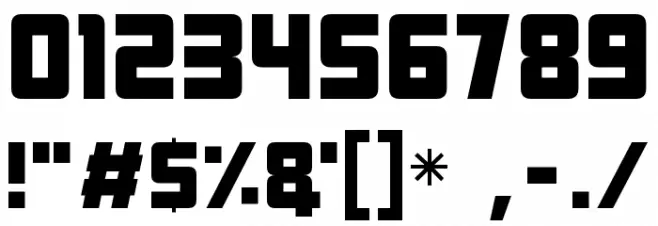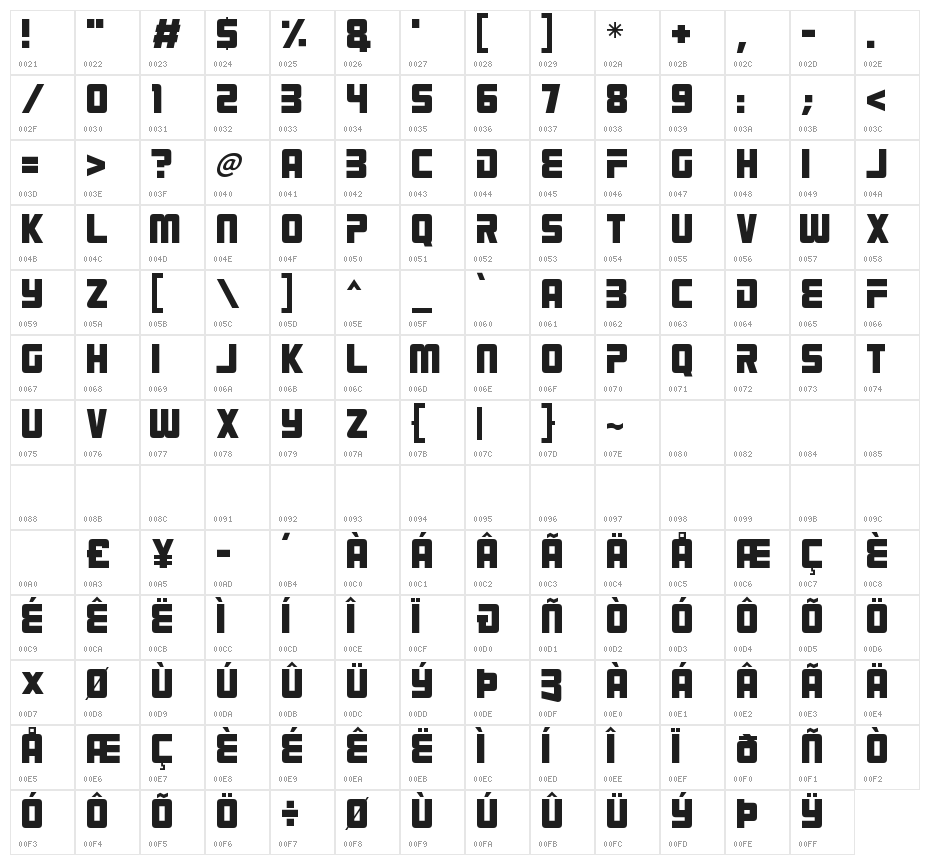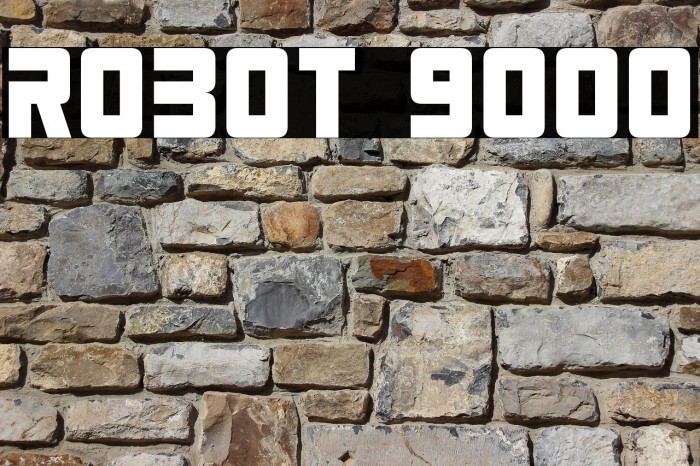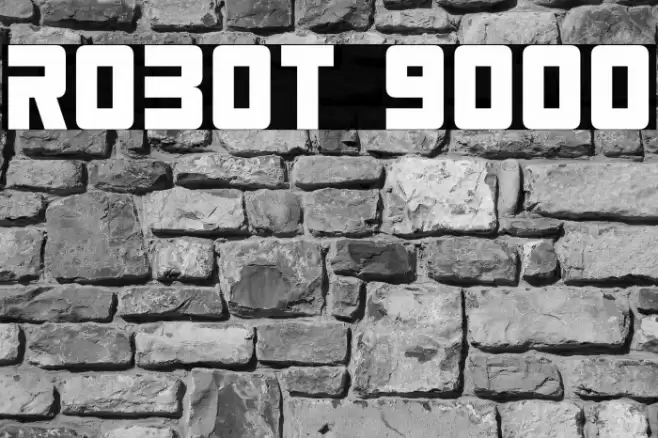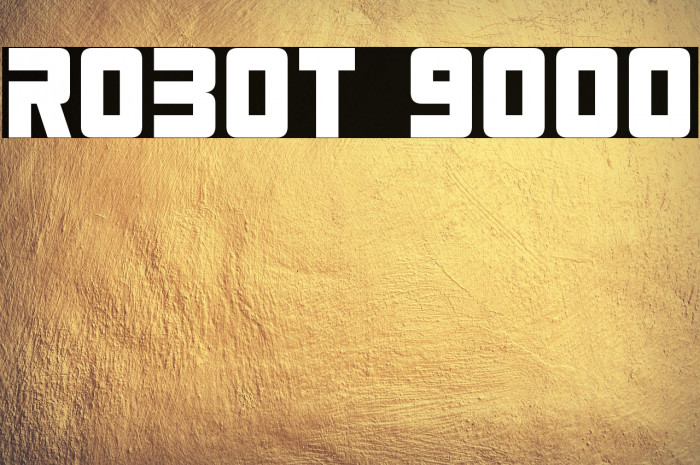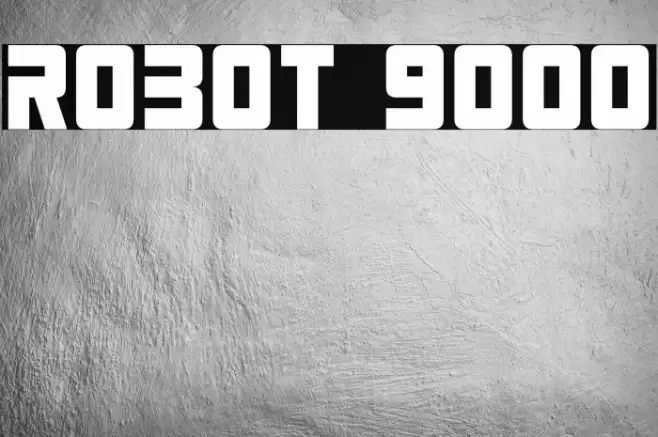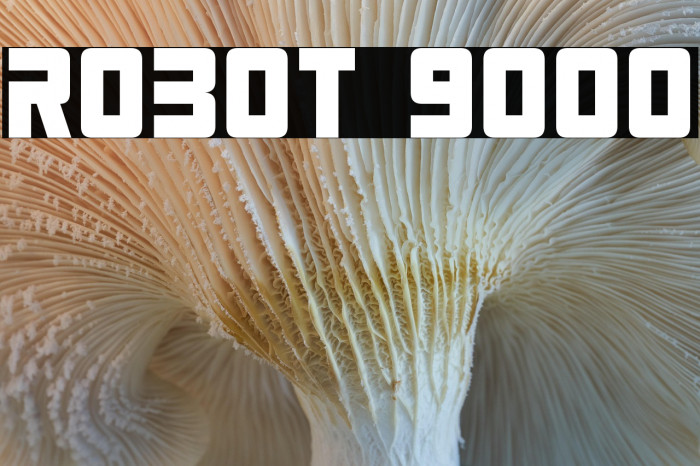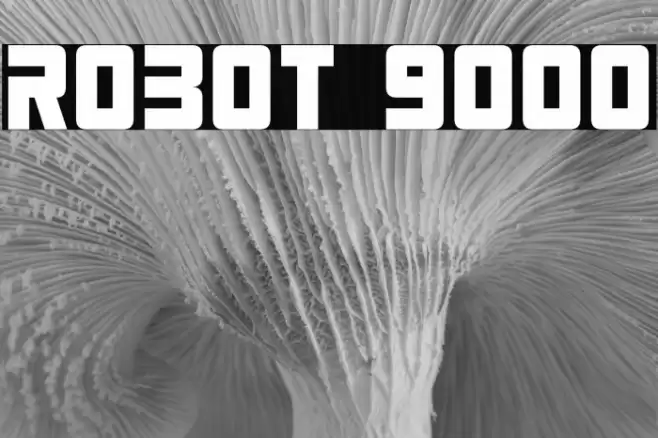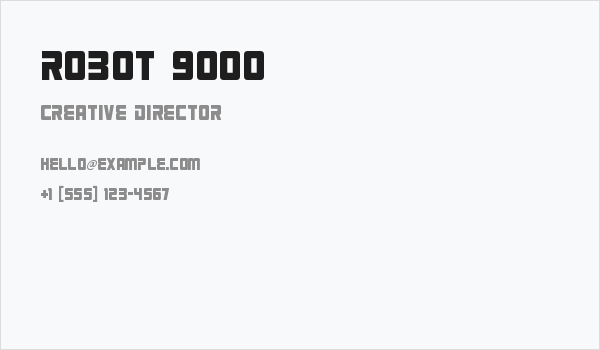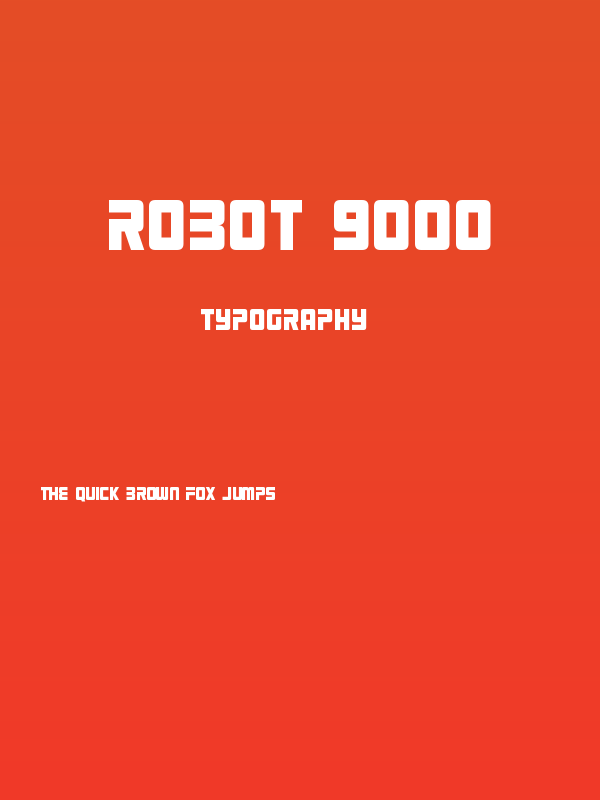
Robot 9000 Font
Robot 9000 Description
This font features a bold, geometric design with strong, angular lines and a futuristic aesthetic. The characters are uniformly wide, creating a sense of stability and strength. The uppercase and lowercase letters maintain a consistent style, with the lowercase mirroring the uppercase in form. The numbers are equally robust, matching the boldness of the alphabet. Special characters are designed to complement the overall style, maintaining the same weight and angularity. This font is ideal for projects that require a modern, tech-inspired look.